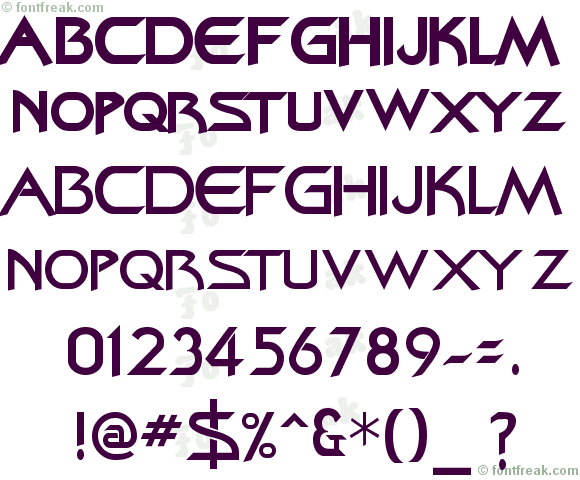
Bajoran Regular
The Bajoran font by Kiwi Media is a striking display typeface that draws inspiration from the rich visual language of science fiction, particularly reminiscent of the iconic series "Deep Space Nine." This shareware font features a unique design that balances both futuristic and organic elements, making it a captivating choice for various creative projects. With its bold stroke weight and moderate contrast, the Bajoran font commands attention while remaining legible across different sizes. The letterforms exhibit a slight curvature, enhancing their visual appeal and creating a sense of movement, while the generous spacing between characters ensures clarity and readability.
This font is particularly well-suited for use cases that require a touch of flair and personality. Graphic designers may find it perfect for creating eye-catching movie posters or promotional materials for science fiction events. Small business owners can utilize the Bajoran font for branding elements or merchandise that aims to resonate with a niche audience. Additionally, content creators looking to add a distinct style to their online presence will appreciate its ability to stand out in digital media, such as social media graphics or website headers.
Targeting graphic designers, small business owners, and content creators alike, the Bajoran font offers a versatile solution for anyone seeking to infuse their work with a sense of adventure and creativity. Its unique aesthetic not only sets it apart from conventional typefaces but also provides a memorable visual identity for any project. For those interested in exploring this captivating typeface, the Bajoran font free download option makes it accessible for personal or commercial use. Embrace the bold character of the Bajoran font and elevate your design projects with its distinctive style.